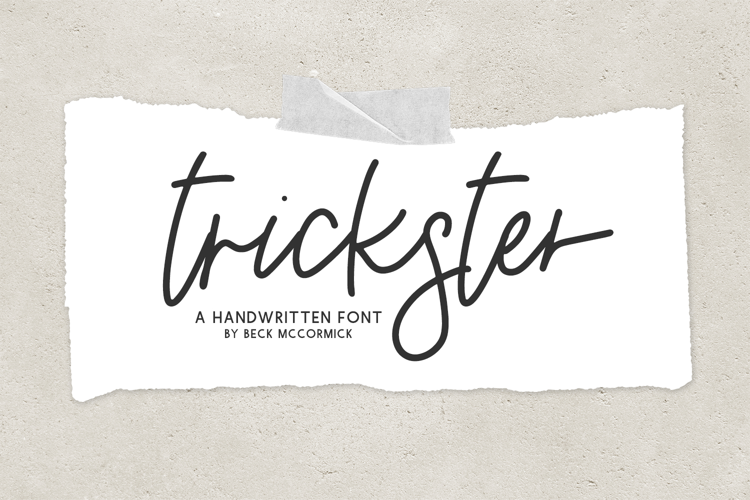
Trickster! Fun Retro Font
Introducing Trickster – a mesmerizing blend of timeless elegance and retro charm, this latest font creation is a celebration of calligraphy's rich heritage. Designed to evoke a sense of whimsy and playfulness, Trickster seamlessly combines classic script elements with a dash of modern flair.
Trickster boasts a distinctive retro calligraphy style that transports users to a bygone era, reminiscent of vintage signages and handwritten notes. Its graceful curves and fluid strokes capture the essence of traditional calligraphy while injecting a contemporary twist. Special Features:
- Ligatures: Trickster font is adorned with carefully crafted ligatures, enhancing the fluidity of characters and ensuring a seamless visual experience. These ligatures effortlessly connect letters, creating a harmonious and natural flow in your text.
- Stylistic Alternates: Elevate your design with Trickster's stylistic alternates, offering a variety of character variations to choose from. This feature allows you to customize the appearance of specific letters, adding a touch of uniqueness and character to your typography.
Trickster is perfect for a myriad of creative projects, Trickster adds a touch of sophistication to invitations, greeting cards, posters, branding materials, and more. Its timeless charm makes it suitable for both formal and casual contexts, providing endless possibilities for expression.
Embrace the nostalgia of the past while embracing the possibilities of the present with Trickster – a font that effortlessly marries retro aesthetics with contemporary design, ensuring your text stands out with grace and style.